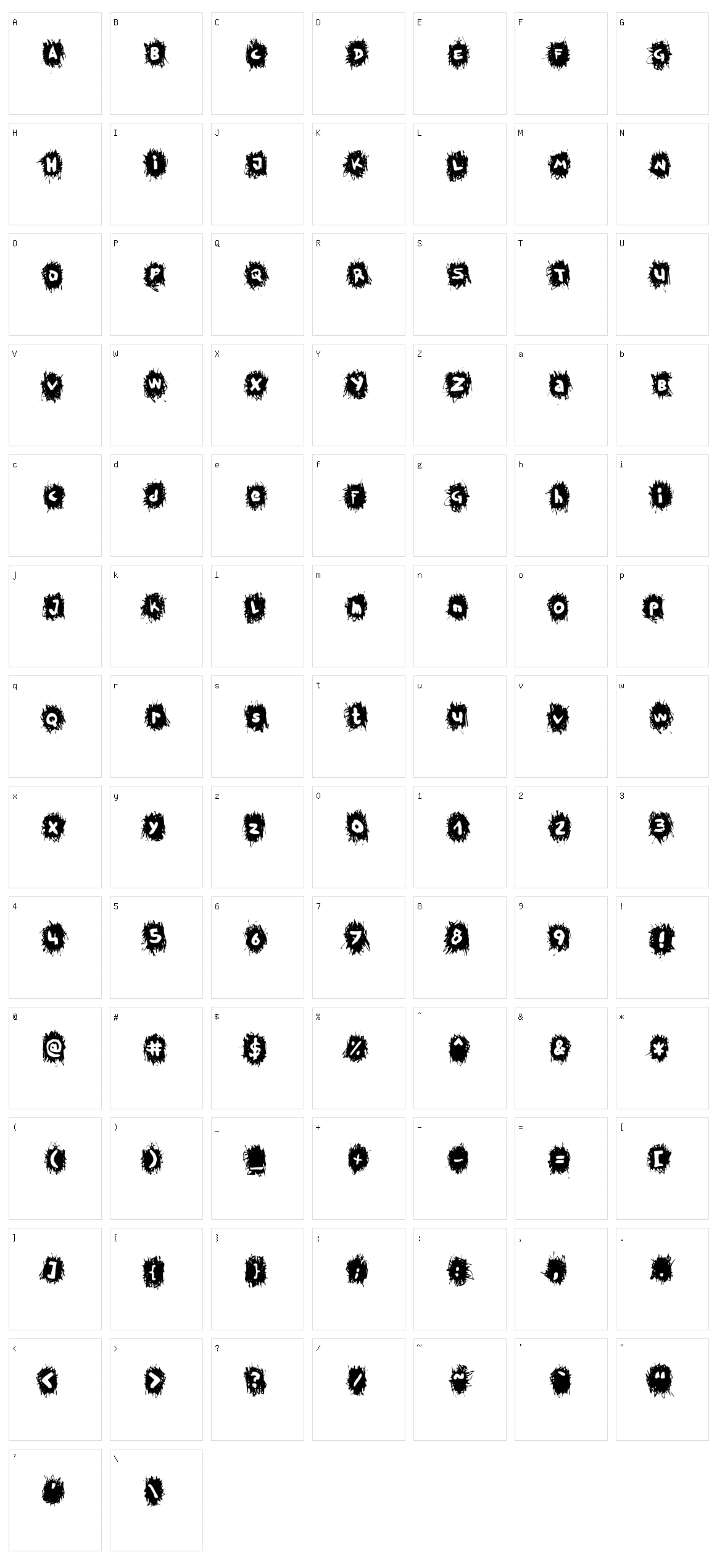
The free font TPF Krikkel Krakkel is carefully designed by Font Environment, showcasing a thoughtful balance of creativity and usability and falls under the Trash font style. When you download the ZIP file, it contains only 84.46 KB of font files, making it lightweight and quick to download. Please review the license details below to understand permitted usage and distribution rights. If license information is not available, we recommend using this font for personal projects only or contacting the author directly for commercial usage permissions.
TPF Krikkel Krakkel